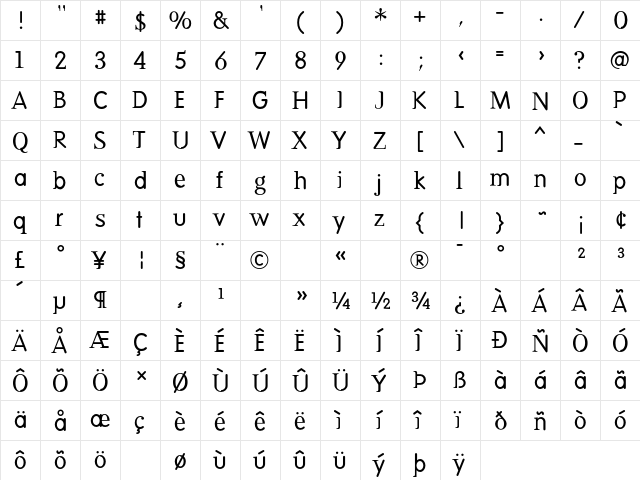
DeadHistoryRoman Roman
Design Context for DeadHistoryRoman Typeface
DeadHistoryRoman is a composed and adaptable typeface that performs quietly and consistently across a wide range of design contexts.